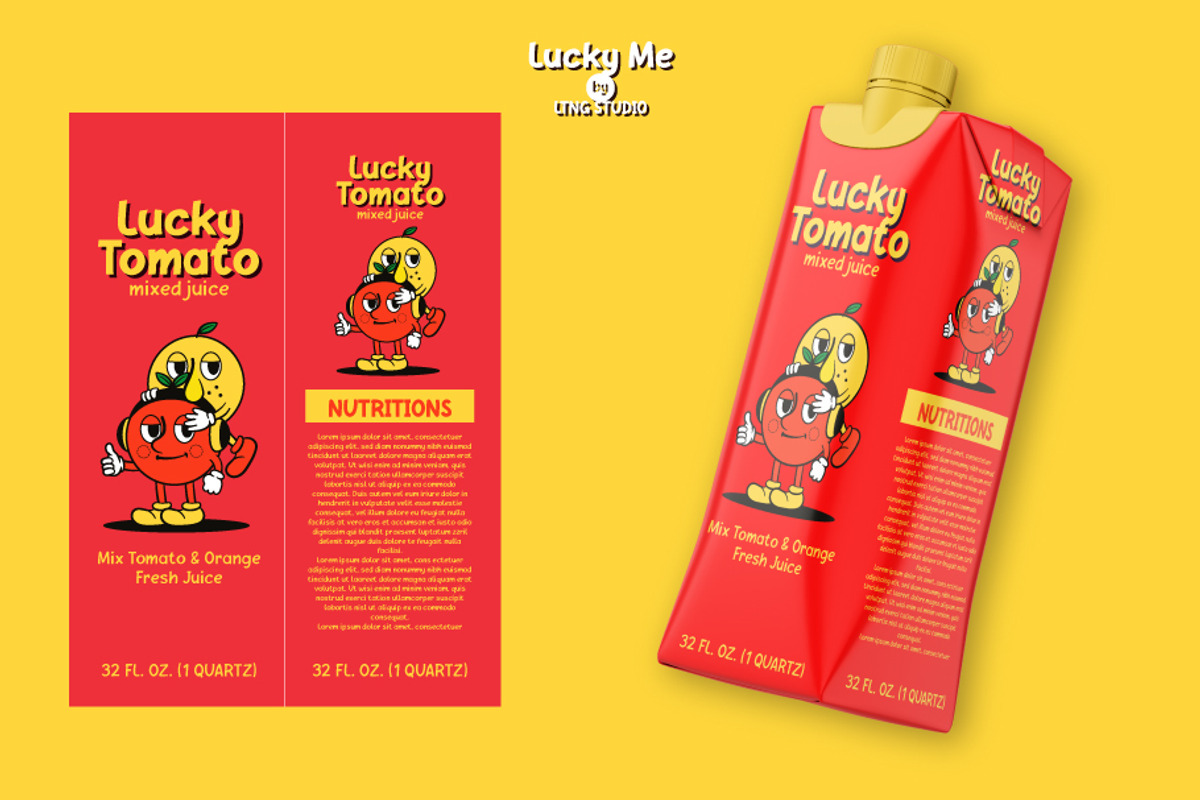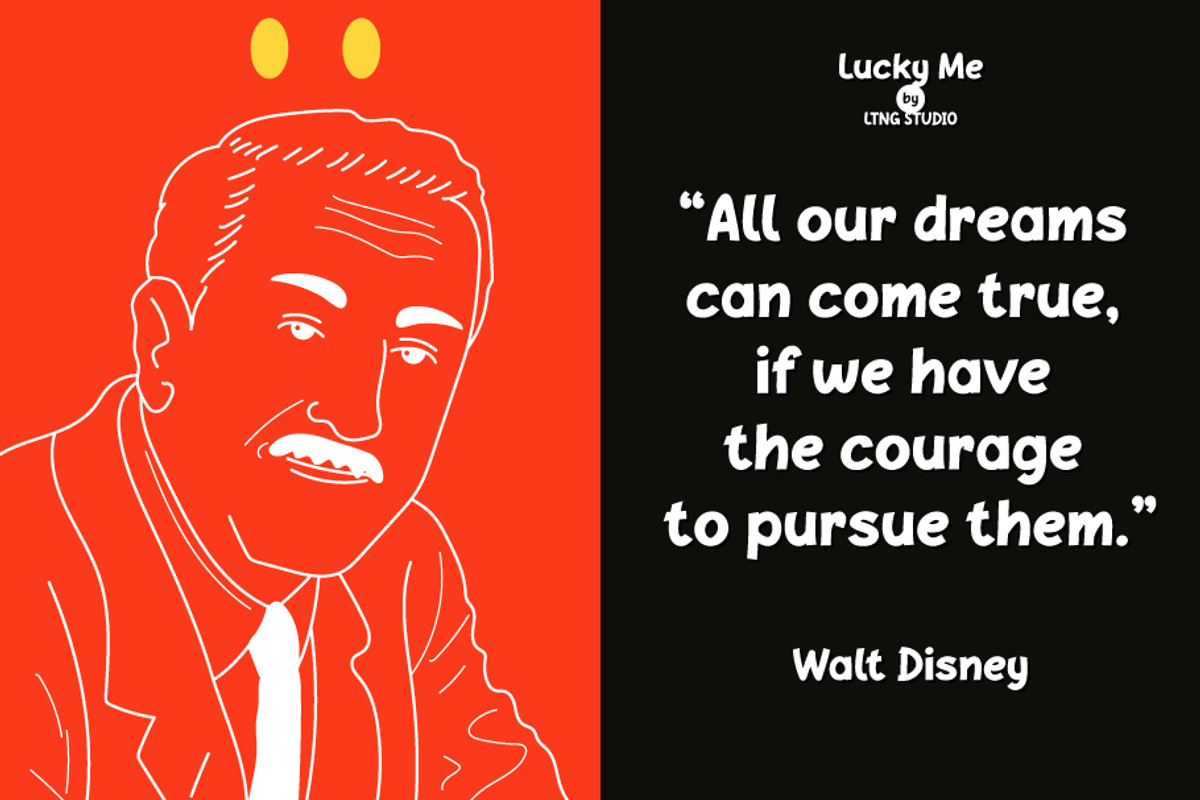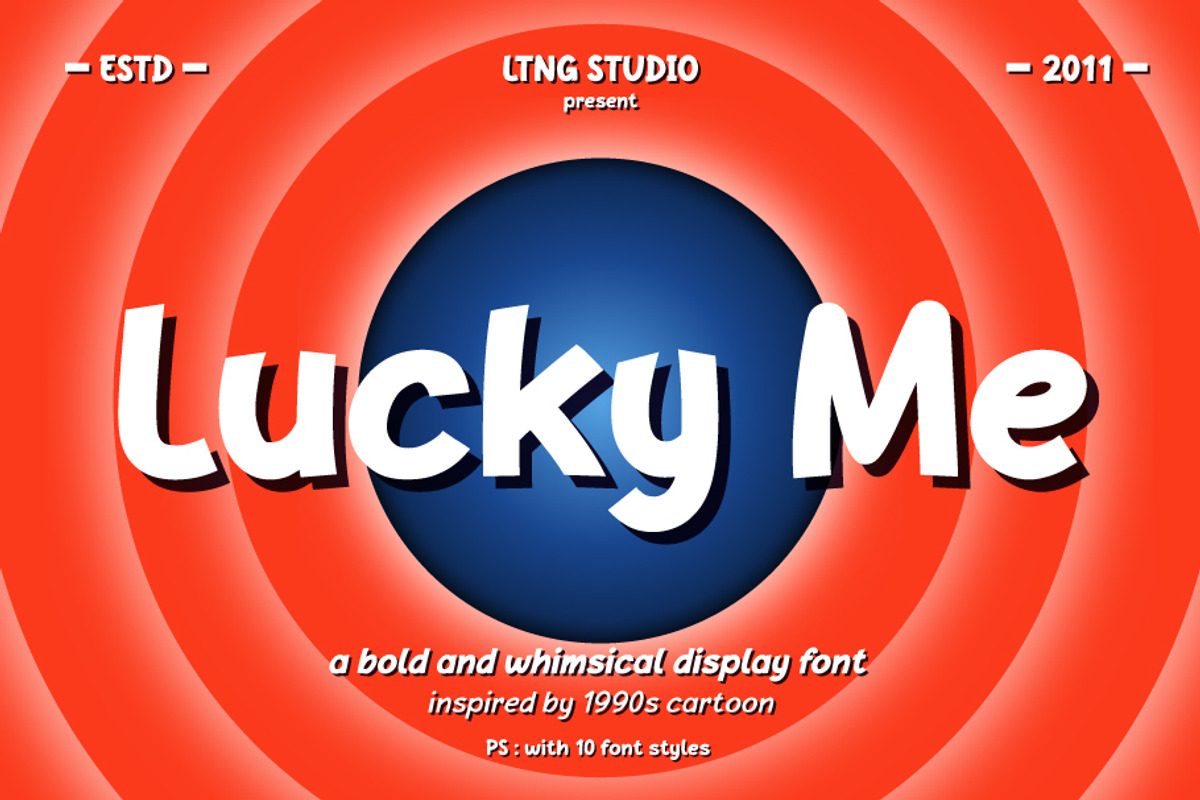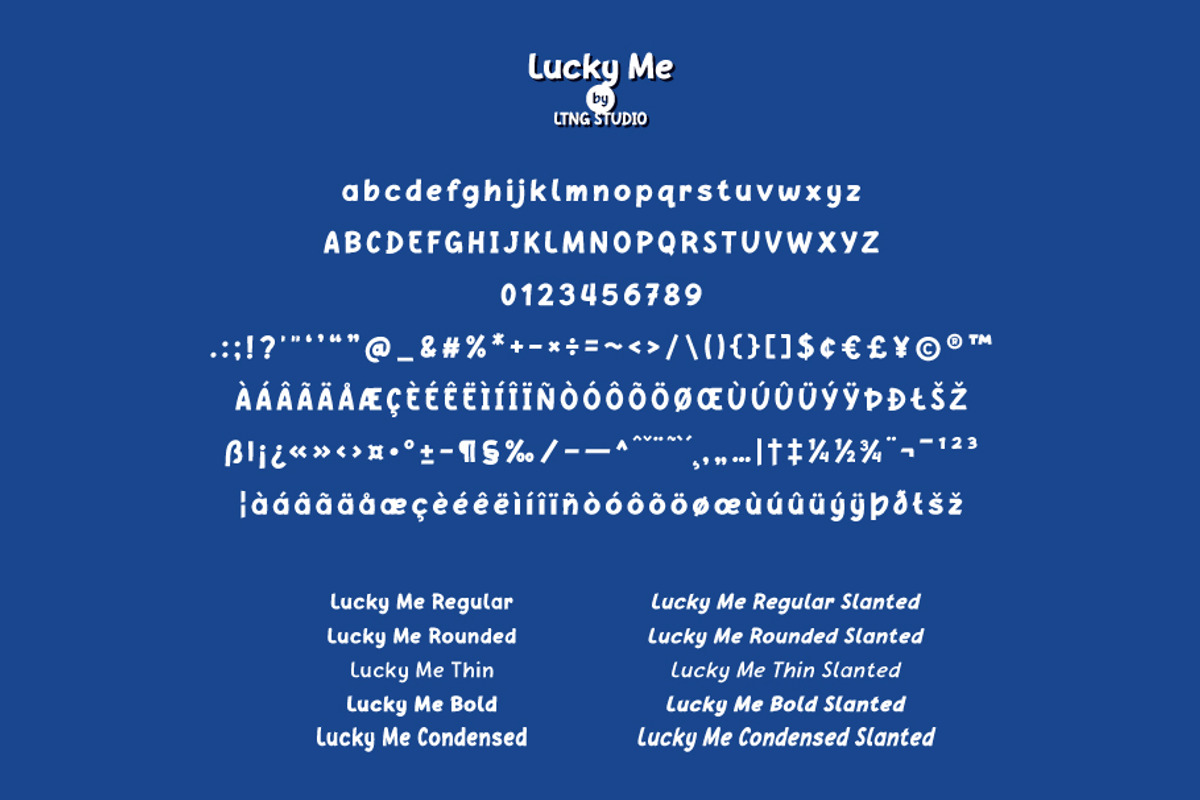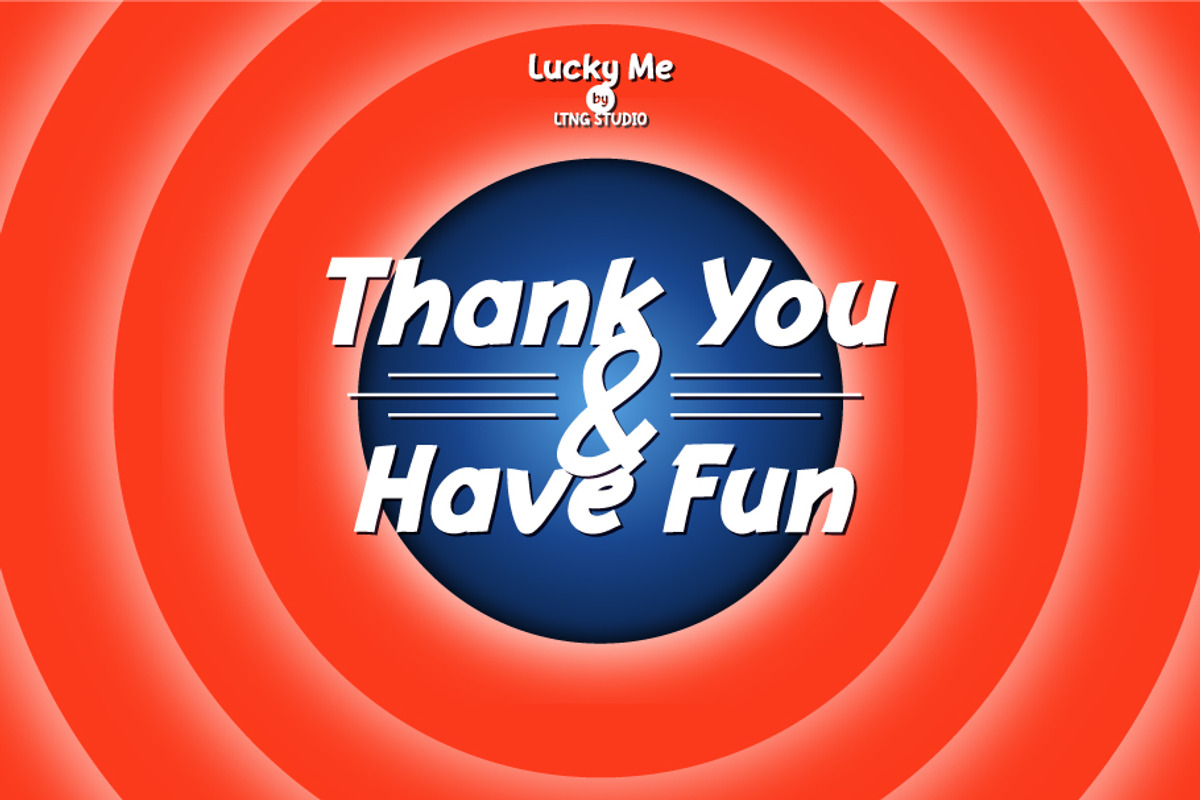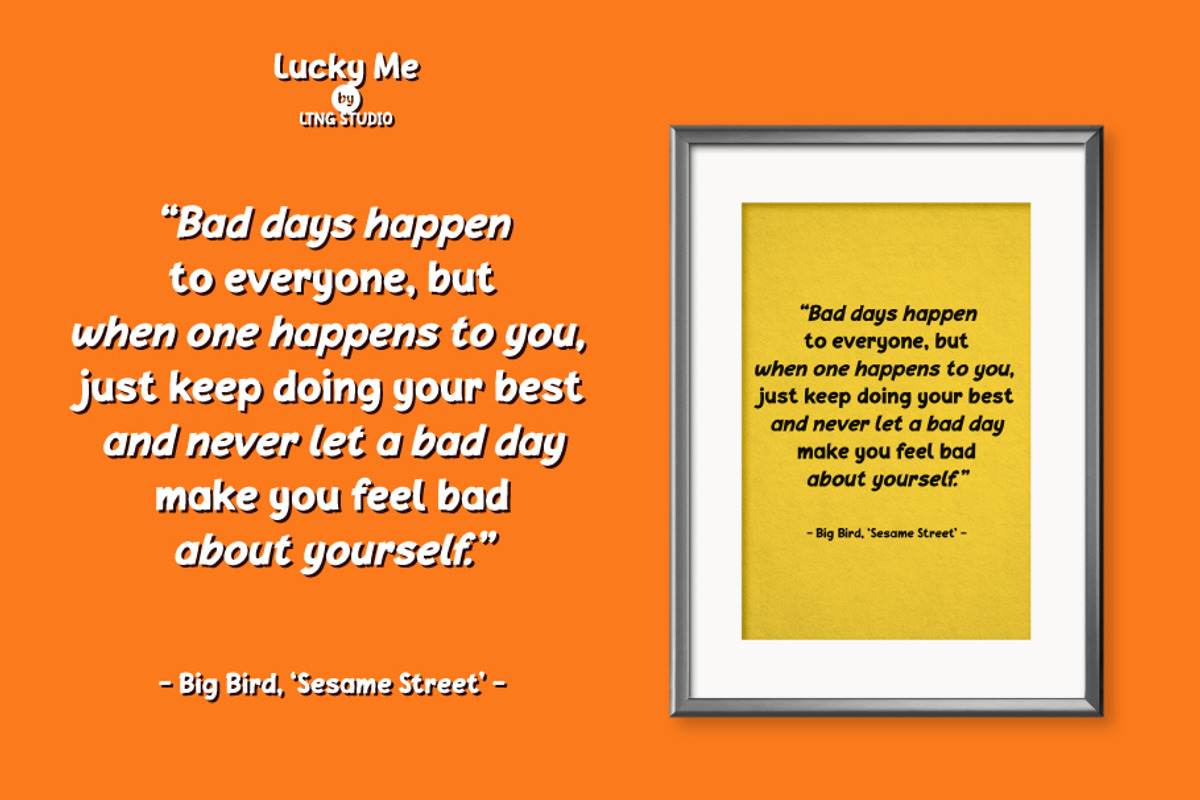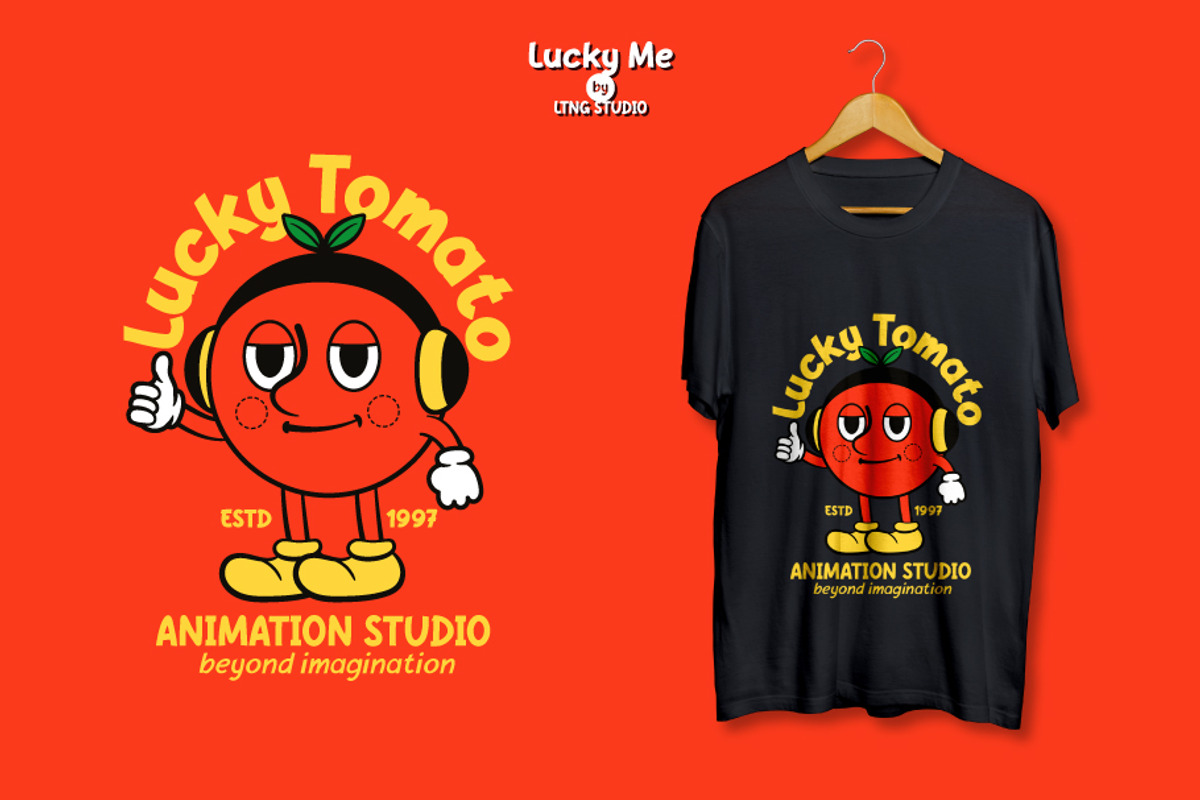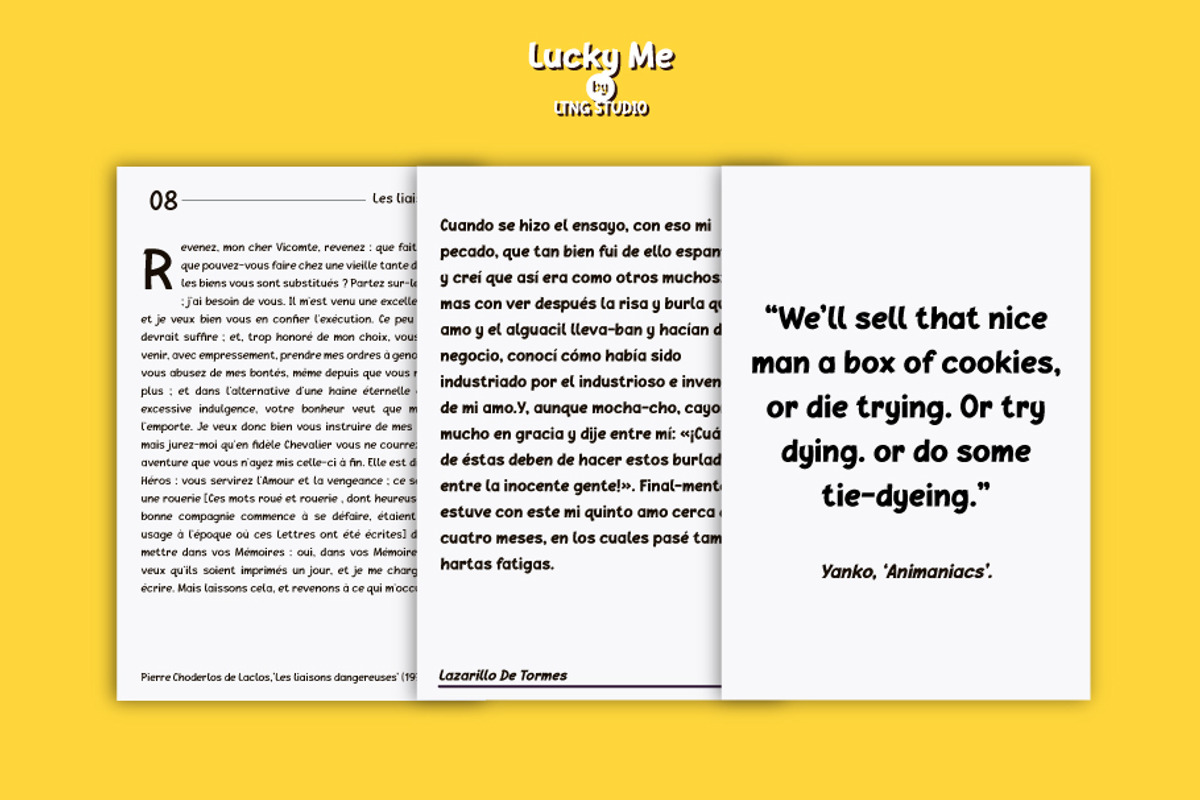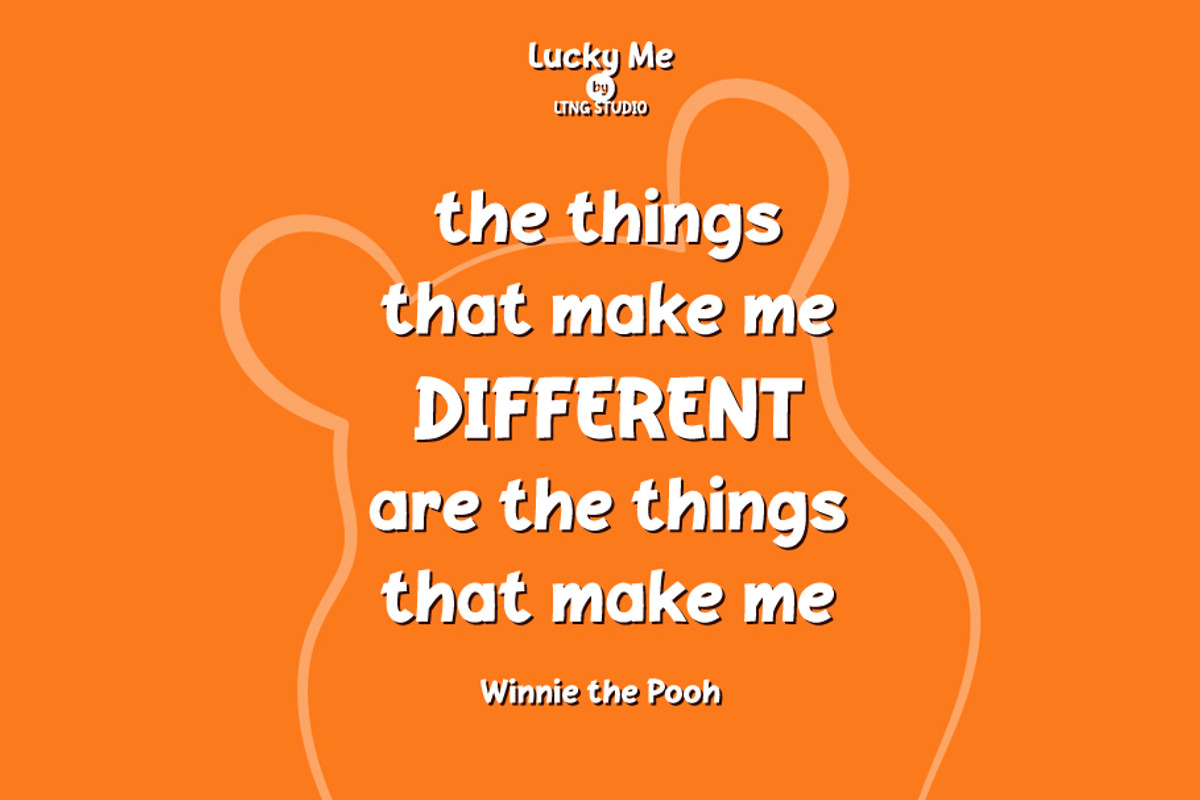
Lucky Me 90s Display Font
Introducing Lucky Me - a bold and whimsical display font inspired by the lively cartoon animations of the 1990s. This custom hand-lettered font features a bouncy, upbeat look with exaggerated curves and bouncy look that's sure to make your designs pop. The uppercase and capital letters are designed to stand out and grab attention, making it perfect for headlines, titles, and logos.
In addition to its unique style, Lucky Me also supports multilingual languages, allowing it to be used in a variety of design projects. Whether you're creating a poster, branding, a website, or a packaging design, this font is sure to add a fun and whimsical touch to your work.